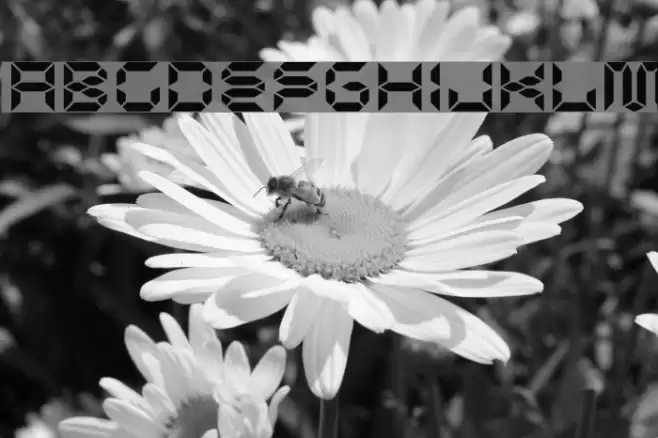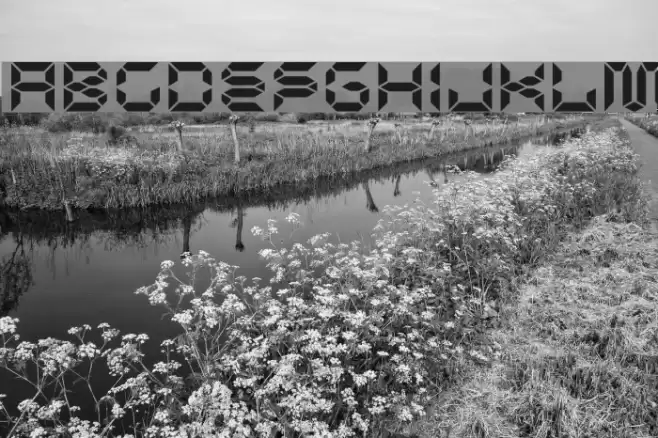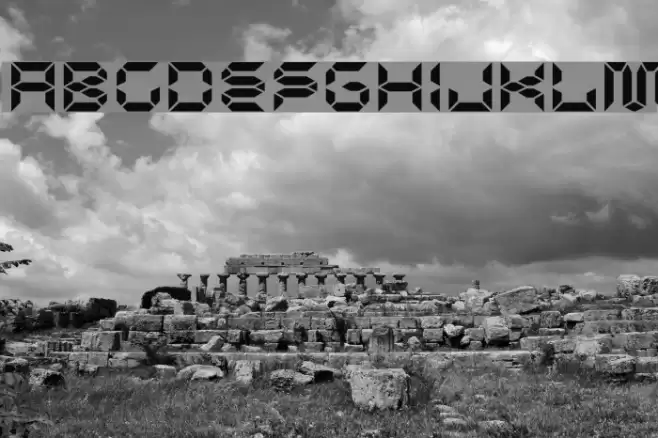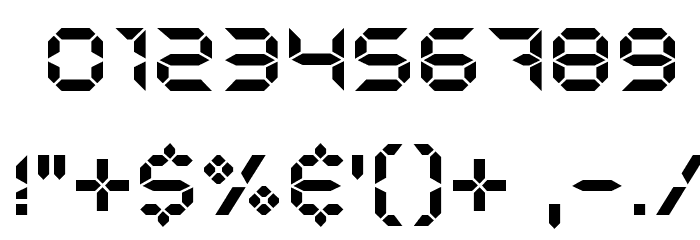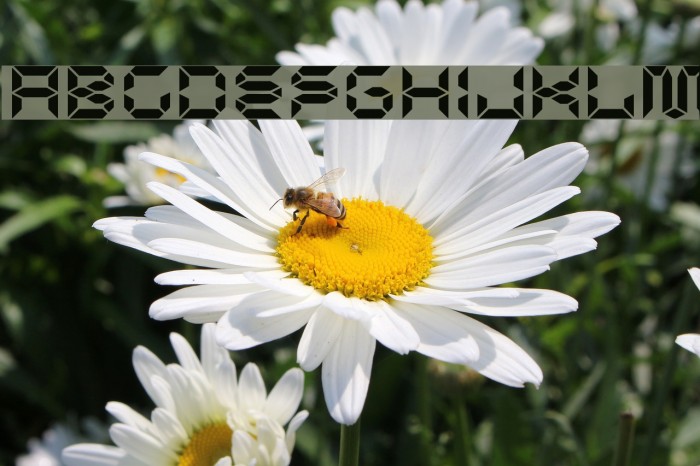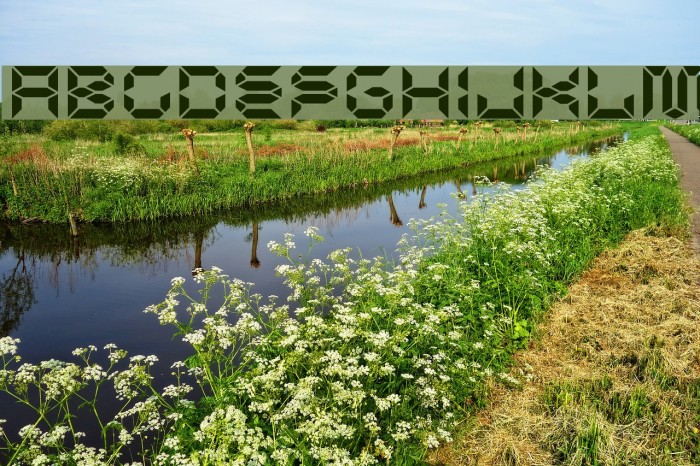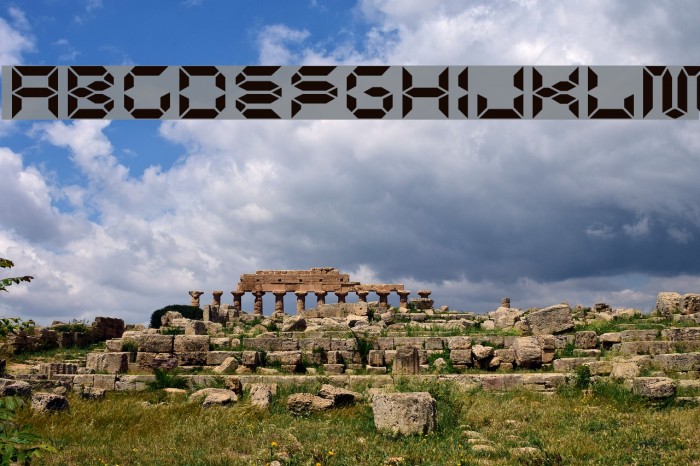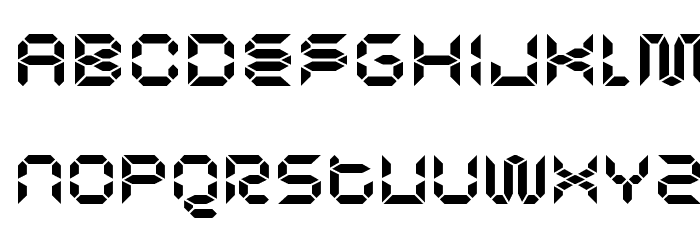
Odysseus Font
Odysseus Description
This font features a bold, geometric design with a futuristic and digital aesthetic. Each character is constructed from a series of angular, block-like shapes, creating a sense of depth and dimension. The style is reminiscent of digital displays or LED screens, with a strong emphasis on straight lines and sharp angles. The uppercase and lowercase letters maintain a consistent style, ensuring uniformity across the typeface. Numbers and special characters are designed with the same geometric precision, making them highly legible and visually striking. This font is ideal for projects that require a modern, tech-inspired look.
A bold, geometric font with a futuristic, digital aesthetic from Futuristic fonts.
- Proposed Projects: Ideal for tech branding, digital interfaces, video game titles, and futuristic posters.